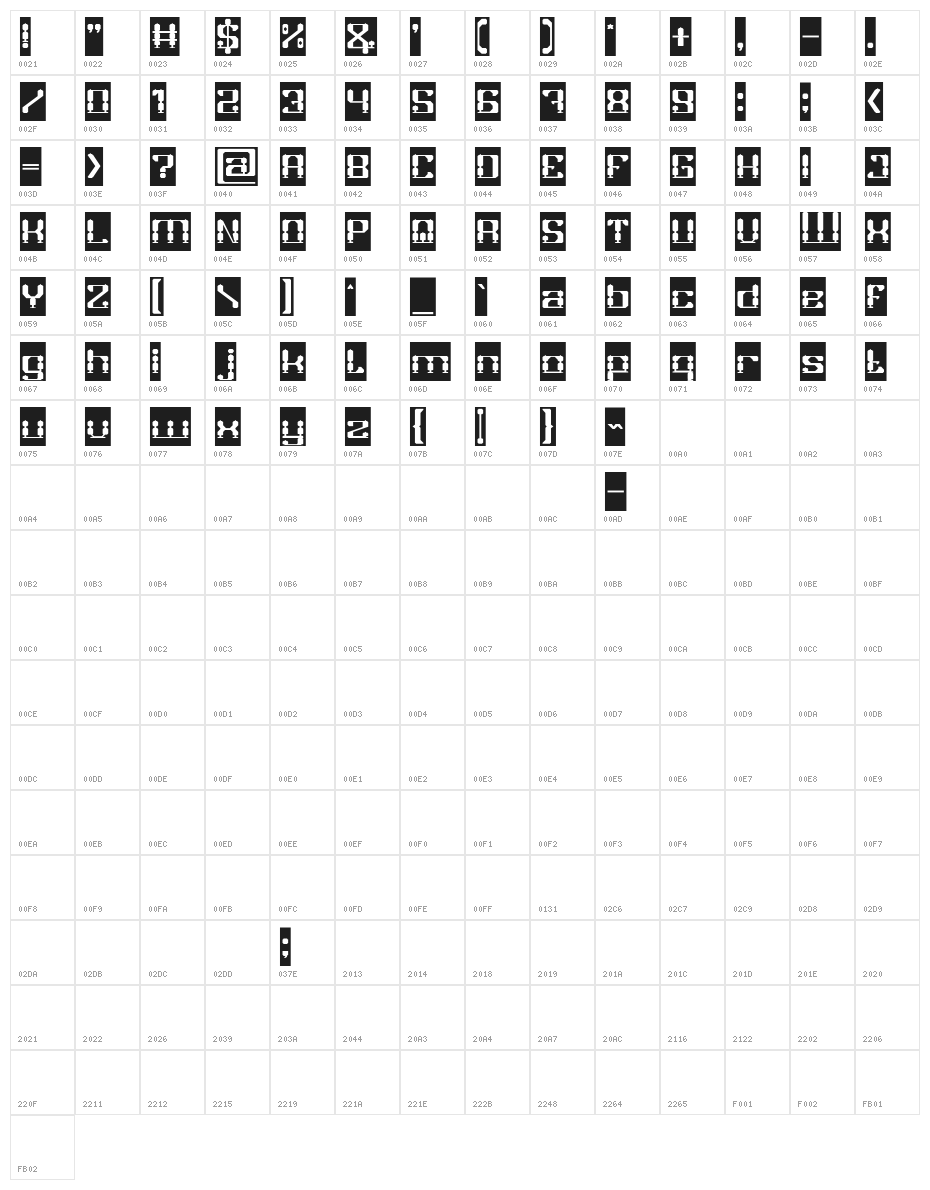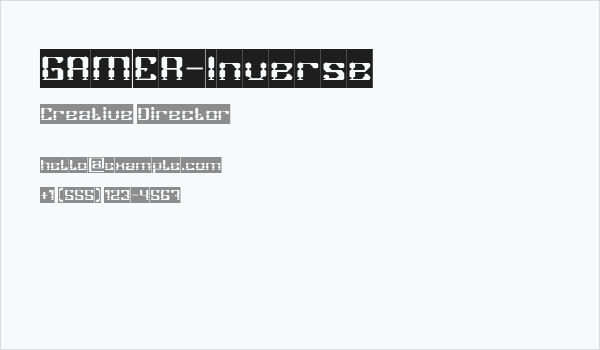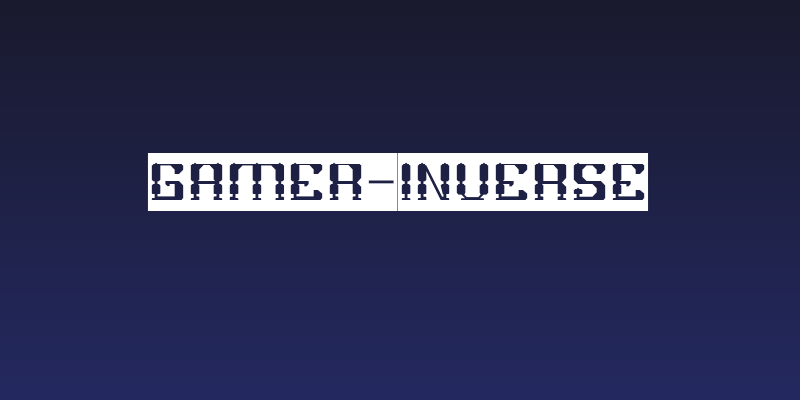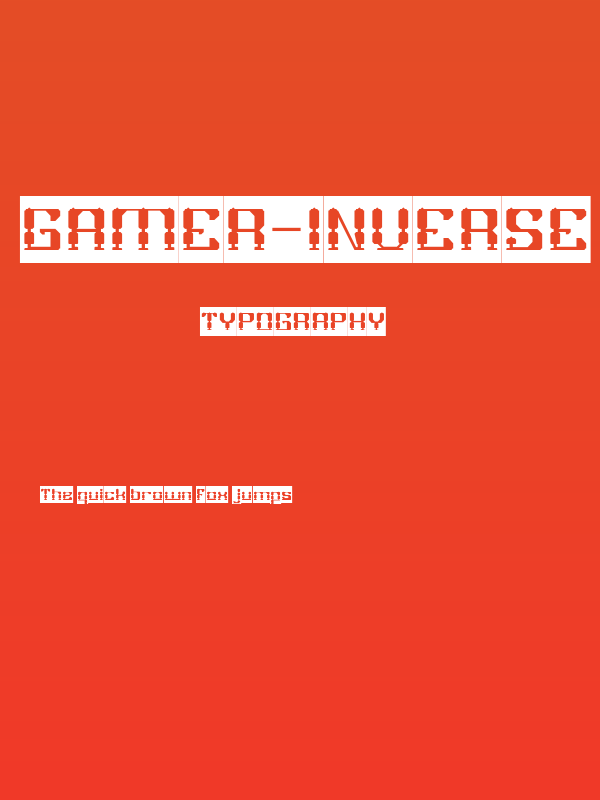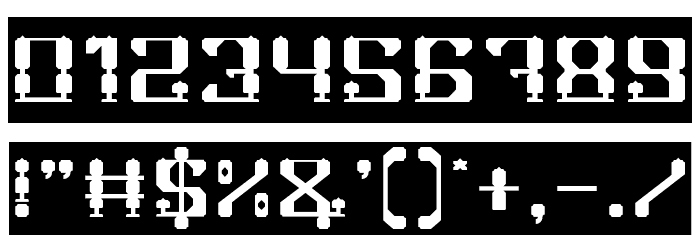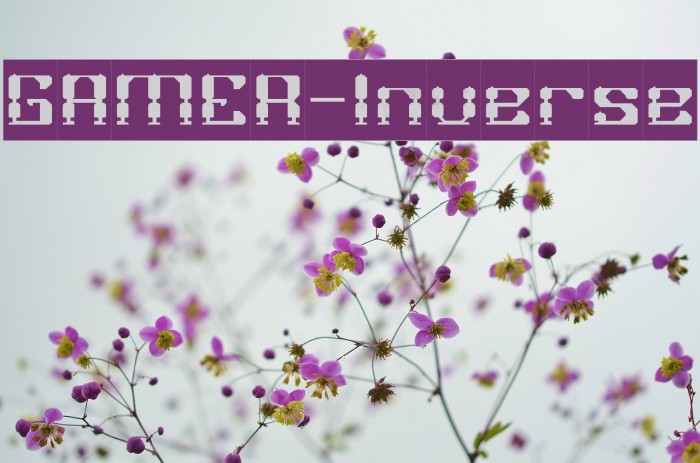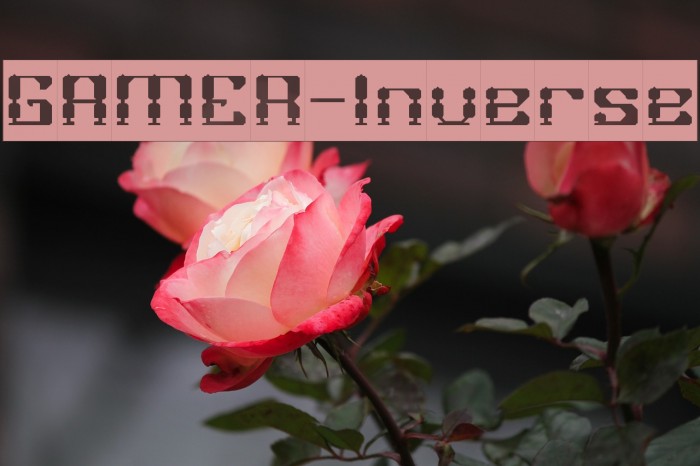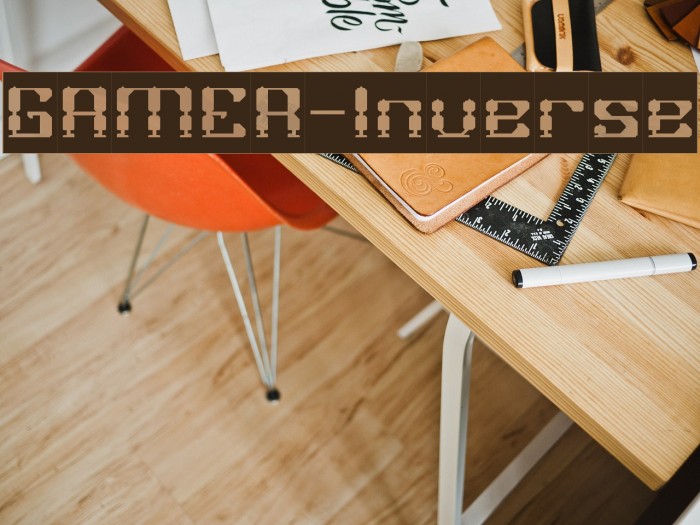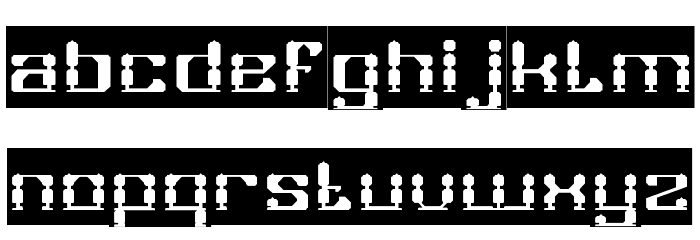
GAMER-Inverse Font
GAMER-Inverse Description
This font features a bold and futuristic design with a digital, tech-inspired aesthetic. The characters are constructed with a blocky, geometric style, incorporating sharp angles and straight lines. Each letter and number is designed with a consistent pattern of cut-out sections, giving it a distinctive, high-tech appearance. The font maintains uniformity across uppercase, lowercase, and numerical characters, ensuring a cohesive look. The special characters follow the same design principles, making them seamlessly integrate with the rest of the typeface.
| Proposed Projects | Ideal for video game titles, tech branding, digital interfaces, and futuristic posters. |